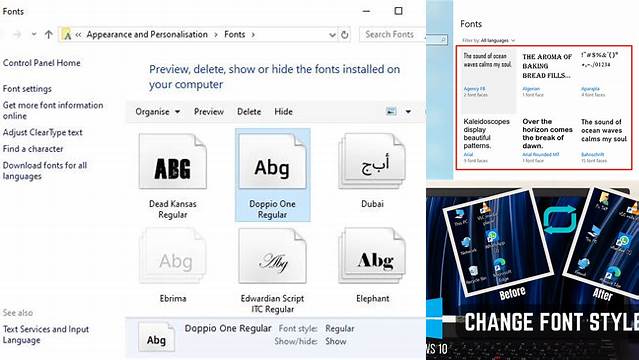
Change Fonts On Windows 10 Laptop: Your Ultimate Guide
Navigating the digital landscape of your Windows 10 laptop, you might find yourself yearning for a personalized touch. One of the most fundamental ways to tailor your experience is by customizing your font choices. Whether you're a student, a professional, or a casual user, the default fonts might not always align with your preferences or your aesthetic vision. Changing fonts in laptop Windows 10 isn't just about aesthetics; it can also significantly enhance readability and reduce eye strain. This comprehensive guide will walk you through every step, ensuring you can effortlessly change fonts on your Windows 10 laptop and inject a dose of personality into your digital world. So, guys, buckle up, and let's dive into the world of font customization!
How to Install New Fonts on Your Windows 10 Laptop
Okay, so you're tired of the same old fonts, huh? That's totally understandable! One of the first steps in changing fonts in laptop Windows 10 is learning how to install new ones. Luckily, Windows 10 makes this super easy. You've got two primary methods, and both are a breeze. First, let's talk about the simplest approach: the drag-and-drop method. Download the font files you want – these are usually in .ttf (TrueType Font) or .otf (OpenType Font) format. Once downloaded, find the font files in your File Explorer. Select the font files, right-click, and choose "Install." Bam! The font is installed, and you're good to go. For the second method, open the Control Panel (you can search for it in the Start menu). Head to the "Appearance and Personalization" section, then click on "Fonts." This opens the Fonts folder. Here, you can drag and drop your font files into the folder. Windows will automatically install them. After a quick installation, your new fonts are ready to be used in various applications like Microsoft Word, Photoshop, and more. Just remember to restart your applications to ensure the new fonts appear in the font selection menus. It's that easy! So go ahead, explore different fonts, and find the ones that best suit your style.
Downloading Fonts from the Internet: A Step-by-Step Guide
Finding the perfect font is like a treasure hunt, right? The internet is a vast font library, offering both free and premium options. When you're looking to change fonts in laptop Windows 10, a good starting point is websites like Google Fonts, DaFont, and Font Squirrel. These sites offer a wide variety of fonts, most of which are free for personal use. When downloading, pay close attention to the licensing agreements. Some fonts are free for personal use but require a license for commercial projects. Once you've found a font you love, download the files. They'll usually be zipped. Extract the files (right-click and select "Extract All") to access the font files, typically in .ttf or .otf format. These are the files you'll install. Remember to be cautious when downloading from the internet. Always download from reputable sources to avoid malware or viruses. Before installing, you can often preview a font on the website to see how it looks. After downloading, proceed with the installation steps mentioned earlier – either drag-and-drop into the Fonts folder or right-click and install the font files. Now, you're ready to explore your new fonts and give your Windows 10 laptop a fresh look. Downloading fonts is a crucial aspect of being able to change fonts in laptop Windows 10, so take your time, explore your options, and enjoy the process!
Installing Fonts via the Settings App
Did you know there's another way to install fonts? When trying to change fonts in laptop Windows 10, the Settings app offers a more modern approach to font management. Click the Start button and select "Settings" (the gear icon). In the Settings app, go to "Personalization," and then click on "Fonts." This is your central hub for managing all the fonts on your system. Here, you'll see a list of the installed fonts and options to preview them. To install a new font, you can drag and drop the font files directly into this window. Alternatively, you can click on the "Install fonts" button (if available, depending on your Windows 10 version) and then browse to the location where you saved your font files. Once selected, Windows will install the font. This method is very straightforward and integrates well with Windows 10's overall design. Remember to restart any applications that use fonts to ensure that the newly installed fonts are available in the font selection menus. Using the Settings app provides a streamlined way to manage your fonts and is a great option when you want to change fonts in laptop Windows 10. Give it a try; it's easy and efficient!
Changing System Fonts: Customizing Windows 10 Interface
Alright, let's talk about the look of the entire operating system. Changing fonts in laptop Windows 10 extends beyond just applications; you can customize the system fonts for the overall user interface. This can significantly change how you experience Windows 10. However, changing system fonts requires some adjustments to the Registry, so make sure you back up your registry before making any changes. You can do this by searching for "regedit" in the Start menu and opening the Registry Editor. Then, go to "File" and select "Export" to create a backup of your current registry settings. Now, search for "Registry Editor" in the Start menu and open it. Navigate to the following key: HKEY_LOCAL_MACHINE\SOFTWARE\Microsoft\Windows NT\CurrentVersion\Fonts
. Here, you'll see a list of font entries for various system elements. Changing a system font involves modifying the font path values associated with these entries. For example, you can modify the "Segoe UI" entry to another font name to change the default system font. Be careful and double-check the font names to avoid errors. After making changes in the Registry, you may need to restart your computer to see the changes take effect. It's essential to proceed with caution and only make changes if you're comfortable modifying the registry. If you mess up, you can always revert back using your backup. The ability to change fonts in laptop Windows 10 to personalize the entire operating system can make your computer truly your own!
Modifying System Font Settings Through Registry Editor
Let's get a little bit more detailed on how to modify system font settings through the Registry Editor, which is critical if you want to change fonts in laptop Windows 10's core interface. Remember, the Registry Editor is a powerful tool, and any mistakes can cause problems, so proceed with caution. As mentioned earlier, you should back up your registry before making any changes. To open the Registry Editor, search for "regedit" in the Start menu and run it as an administrator. Once open, navigate to HKEY_LOCAL_MACHINE\SOFTWARE\Microsoft\Windows NT\CurrentVersion\Fonts
. This key contains various font-related entries. You'll find values like "Segoe UI (TrueType)", which controls the font used for the majority of the system elements. Double-click the font entry you want to modify. In the "Value data" field, enter the exact name of the new font you want to use. For example, if you want to change the system font to "Arial", you would enter "Arial" here (ensure the font is installed on your system first). Remember to repeat this process for all the relevant font entries you want to change, as different system elements use different fonts. After making your changes, close the Registry Editor and restart your computer. The new system fonts should now be applied. Be aware that not all system elements may change with these modifications, and some applications might override these settings. If something goes wrong, you can restore the registry using the backup you created earlier. Learning to navigate the Registry Editor is vital when you're looking to change fonts in laptop Windows 10 and truly make your computer your own.
Using Third-Party Software to Change System Fonts
Okay, so diving into the Registry Editor might seem a little intimidating for some of you. Don't worry, there's another option! When trying to change fonts in laptop Windows 10, several third-party applications make this process much easier and safer. These programs provide a graphical user interface (GUI) for modifying system fonts, eliminating the need to manually edit the Registry. Some popular options include apps designed specifically for font customization. These tools typically allow you to preview fonts, select the fonts you want to change, and apply the changes with a few clicks. Many of these applications also offer features such as the ability to revert to the default settings if you don't like the changes. They often back up your registry before making modifications, adding an extra layer of safety. Before installing a third-party program, always research to ensure it is from a reliable source, as these programs have system-level access. When using third-party software to change fonts in laptop Windows 10, you often avoid the risks associated with directly editing the registry. Just make sure to follow the program's instructions carefully. If you're not comfortable with the Registry Editor, using a third-party tool is a great way to customize your system fonts without the technical headache.
Customizing Fonts in Microsoft Office Applications
Let's move on to some of the most used applications, Microsoft Office! Changing fonts in laptop Windows 10 extends to all the Microsoft Office applications such as Word, Excel, and PowerPoint. You might want different fonts for different documents or presentations. The process is generally straightforward, and the font customization options are usually found in the "Home" or "Format" tabs of the application's ribbon. In Word, for instance, you can change the font for your text by selecting the text and choosing a font from the font selection menu in the "Home" tab. You can also change the default font for new documents by setting the font in the "Normal" style. In Excel, you can select cells and choose a font from the font menu in the "Home" tab. The same goes for PowerPoint, where you can select text boxes and change the font from the "Home" tab. Each application allows you to adjust font size, style (bold, italic, underline), and color. Learning to change fonts in laptop Windows 10 within Microsoft Office applications will help you create documents that look professional and reflect your personal style. Go ahead and experiment with different fonts and styles to find the ones that work best for your needs!
Discovering the Latest Font Trends and Design Styles
Want to stay in the loop with the latest trends? As you change fonts in laptop Windows 10, keeping up with current font trends can help you make your laptop look fresh and modern. Font trends often reflect shifts in design styles. For example, minimalist design is popular, with clean, sans-serif fonts that are common in modern interfaces. Bold, geometric fonts are another popular trend, often used for headlines and branding. There is also a rising trend towards variable fonts. Variable fonts allow you to adjust the weight, width, and style of a font. This adds greater flexibility to your designs. Also, explore fonts that suit your personality and style. To stay up-to-date with the latest font trends, follow design blogs, explore online design communities, and keep an eye on design websites. You can also explore the font libraries like Google Fonts and Adobe Fonts, which often showcase the most popular and trending fonts. The ability to change fonts in laptop Windows 10 and incorporating these trends allows you to customize your laptop to make it your own.